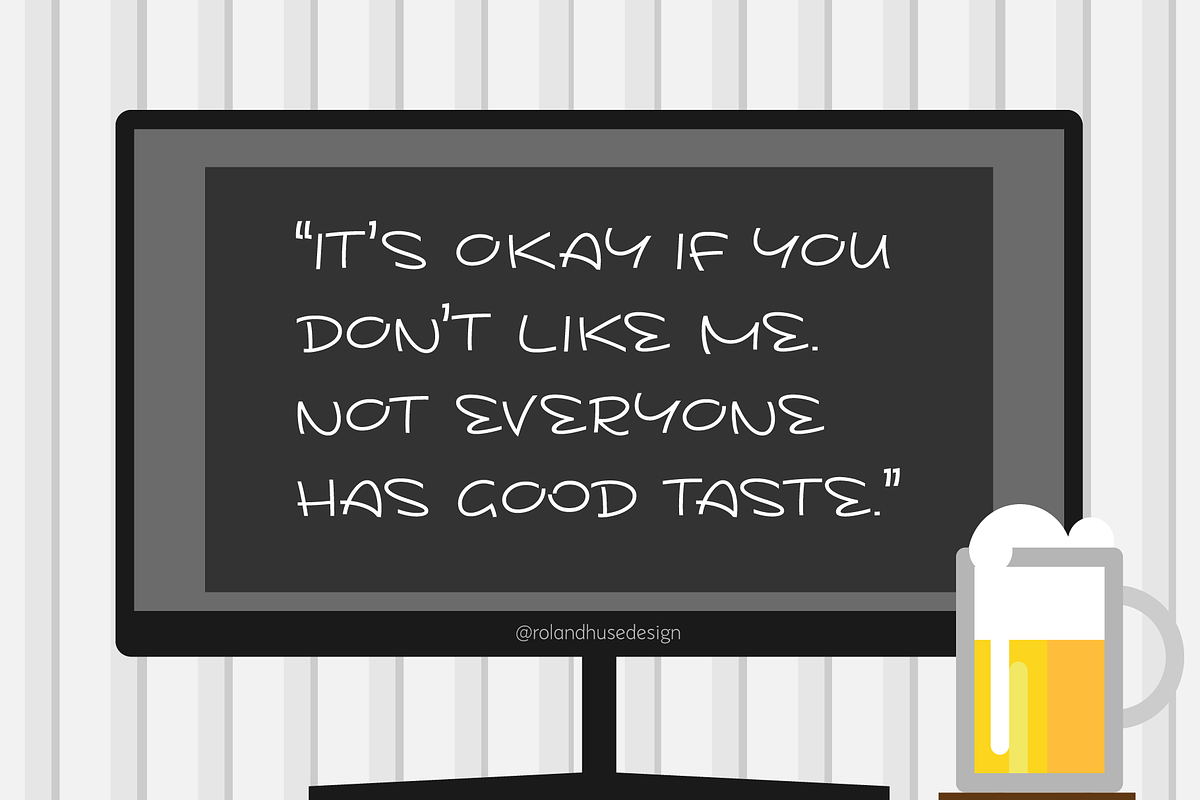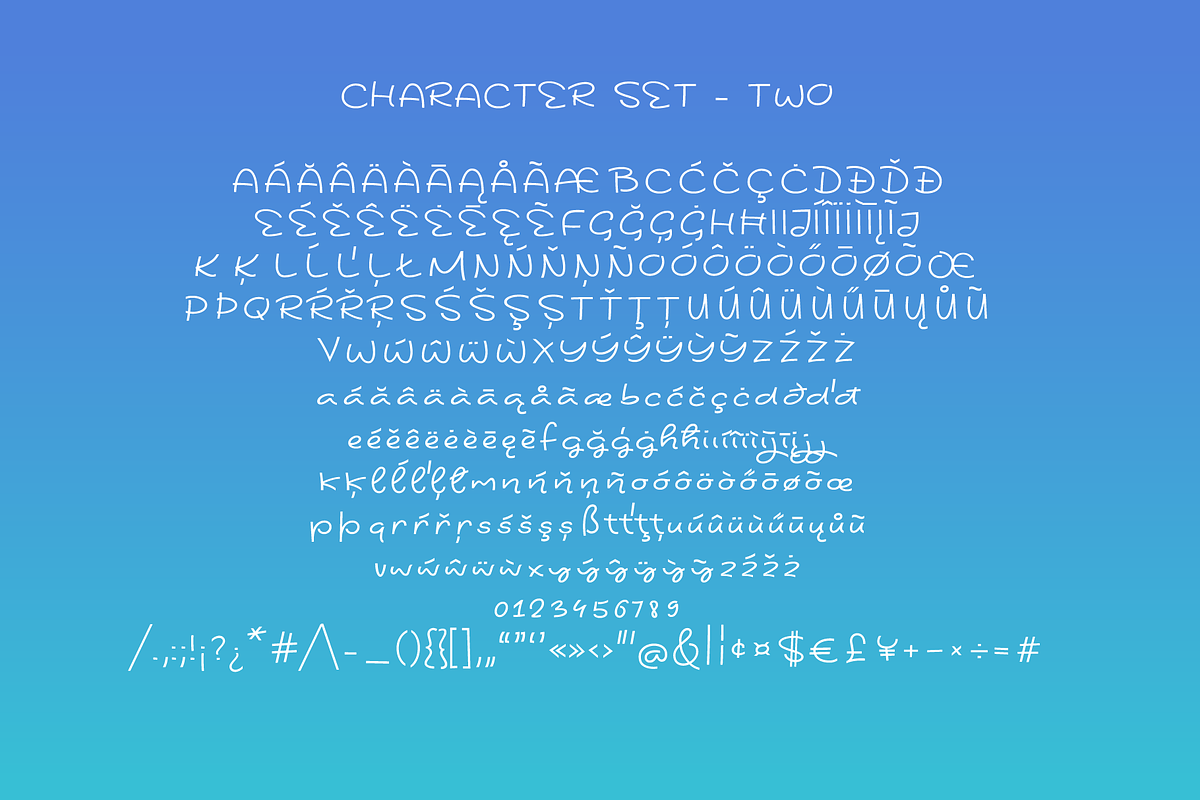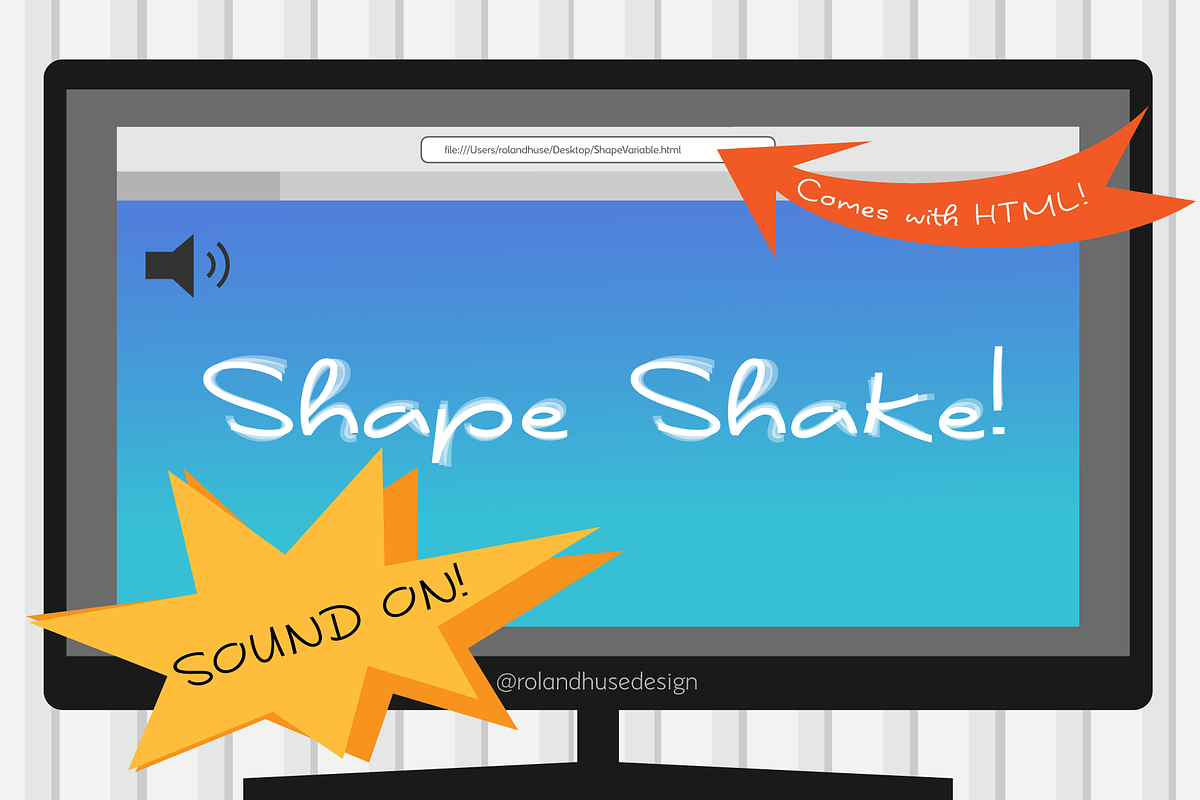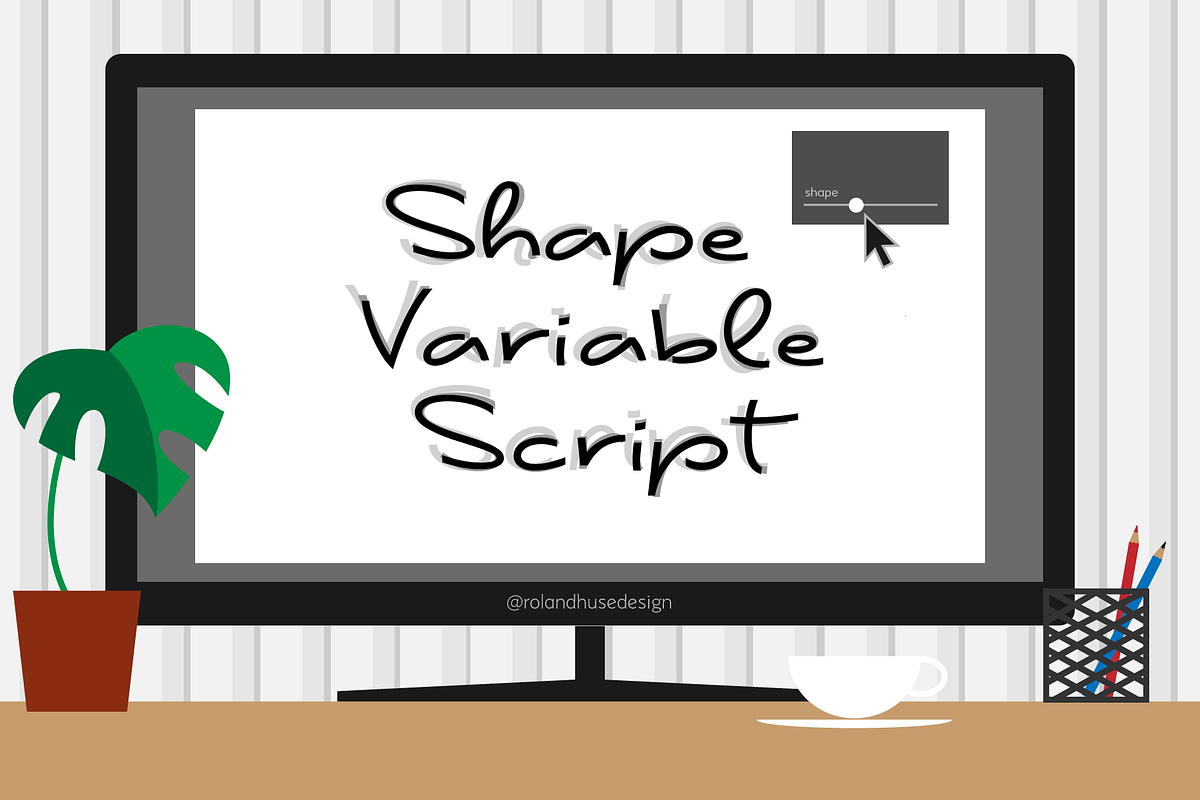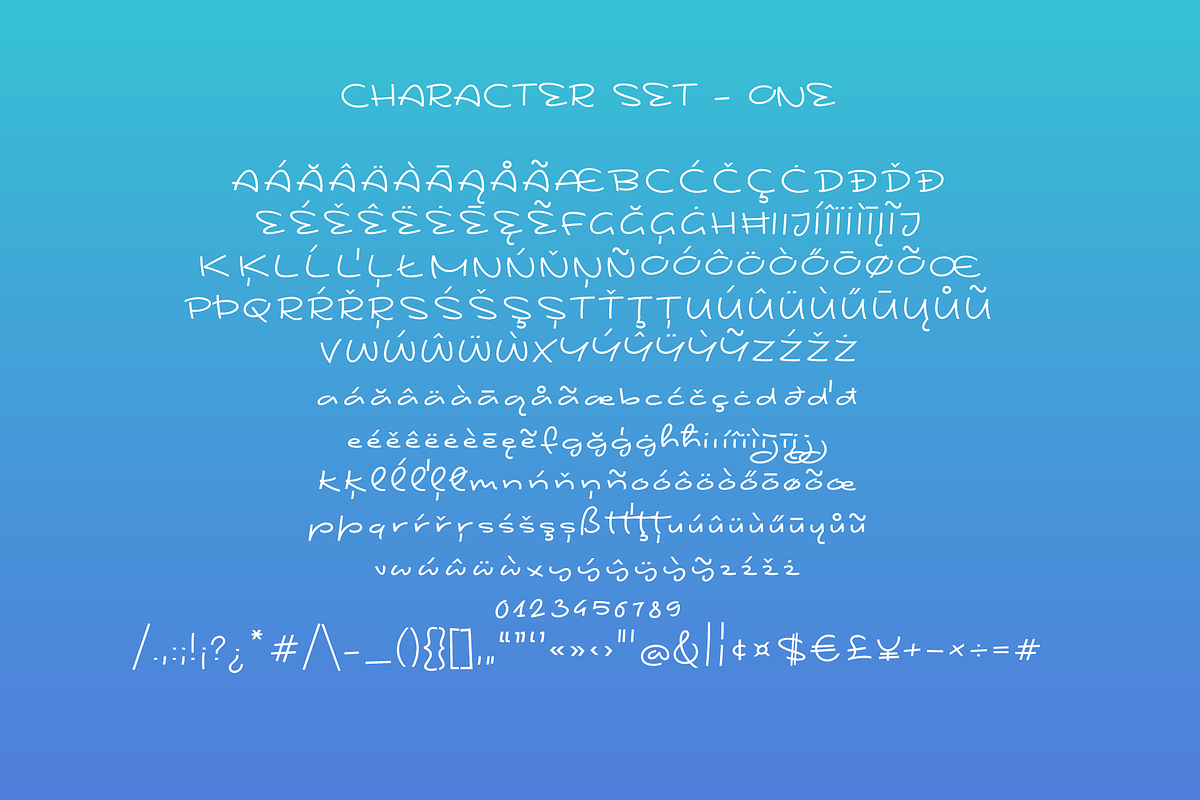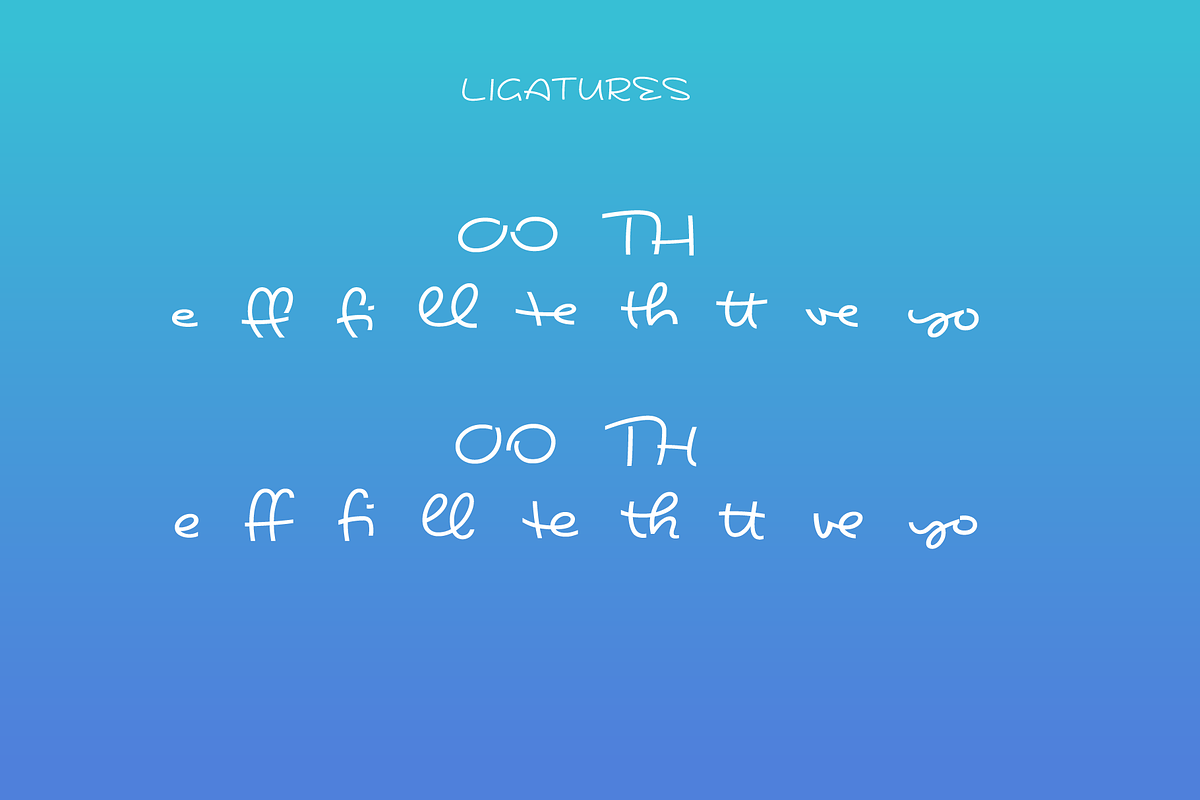
Shape Variable Script
A Shape-shaky script font that reacts to audio! A creative, fun project. The html file along with css and js is included. This font is a casual handwritten script with 2 variations that is variable in between, this gave me the idea to make it an animation that reacts to sound. Anything your mic receives like music or talk, noise will trigger the shape values to change. Make sure you enable/allow microphone in your browser when it pops up and ask. It currently works with Mozilla and Google Chrome. Make sure you store all the files from the zip in the same folder so it works. You can tweak the css and use it on the web as well.
The character set contains western, eastern and south-eastern latin accented characters and special characters, basic symbols and punctuation and signs.
Best use is with large size and a few words rather than large sentences.